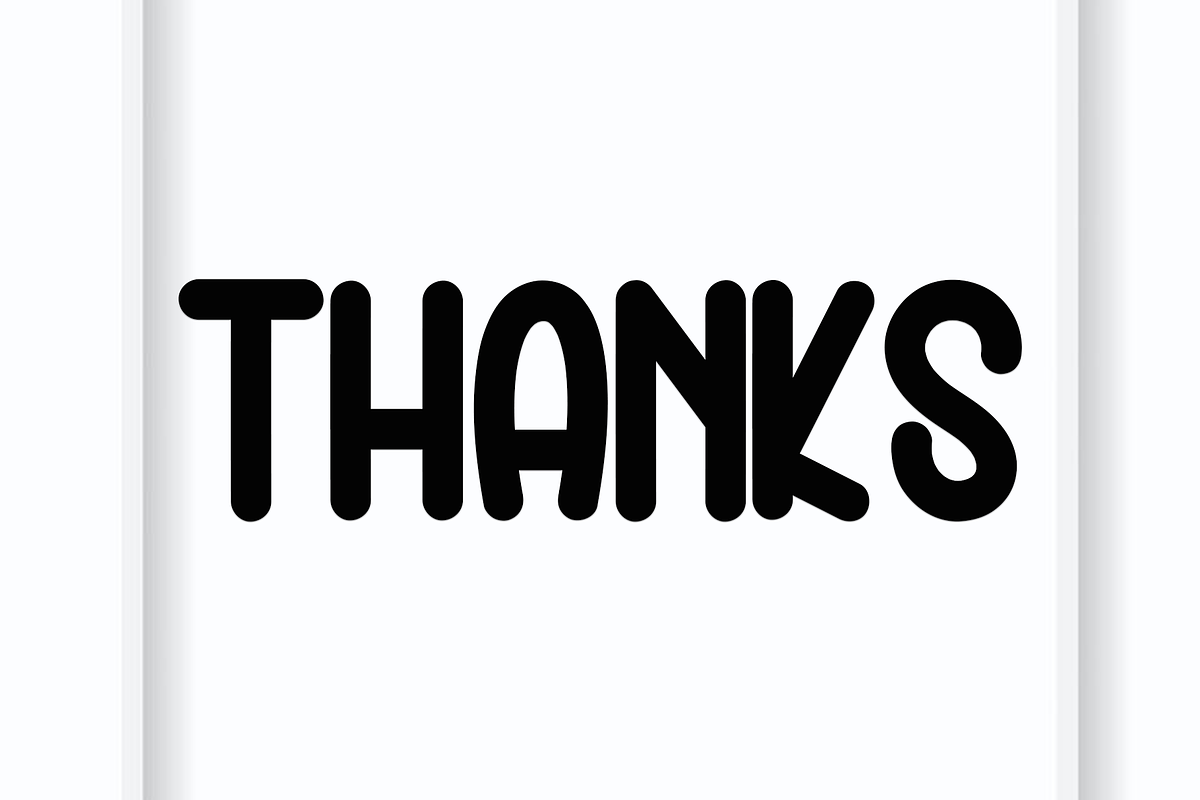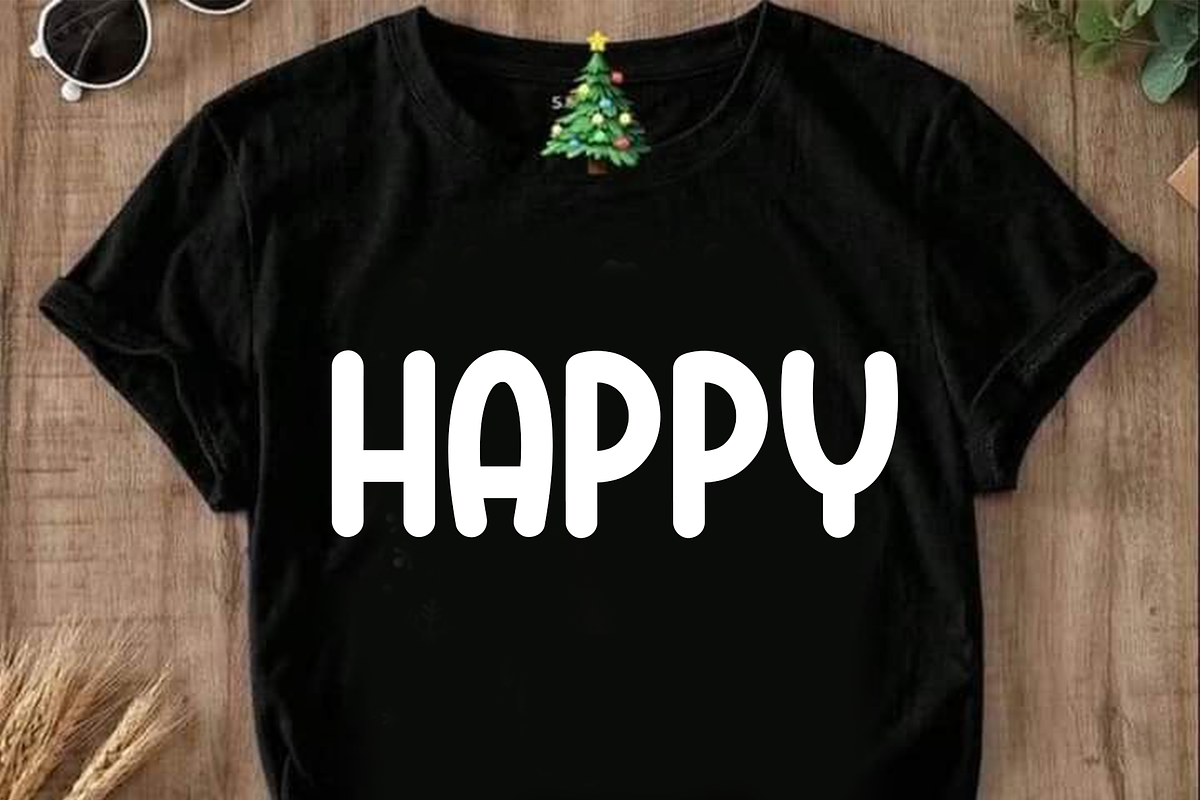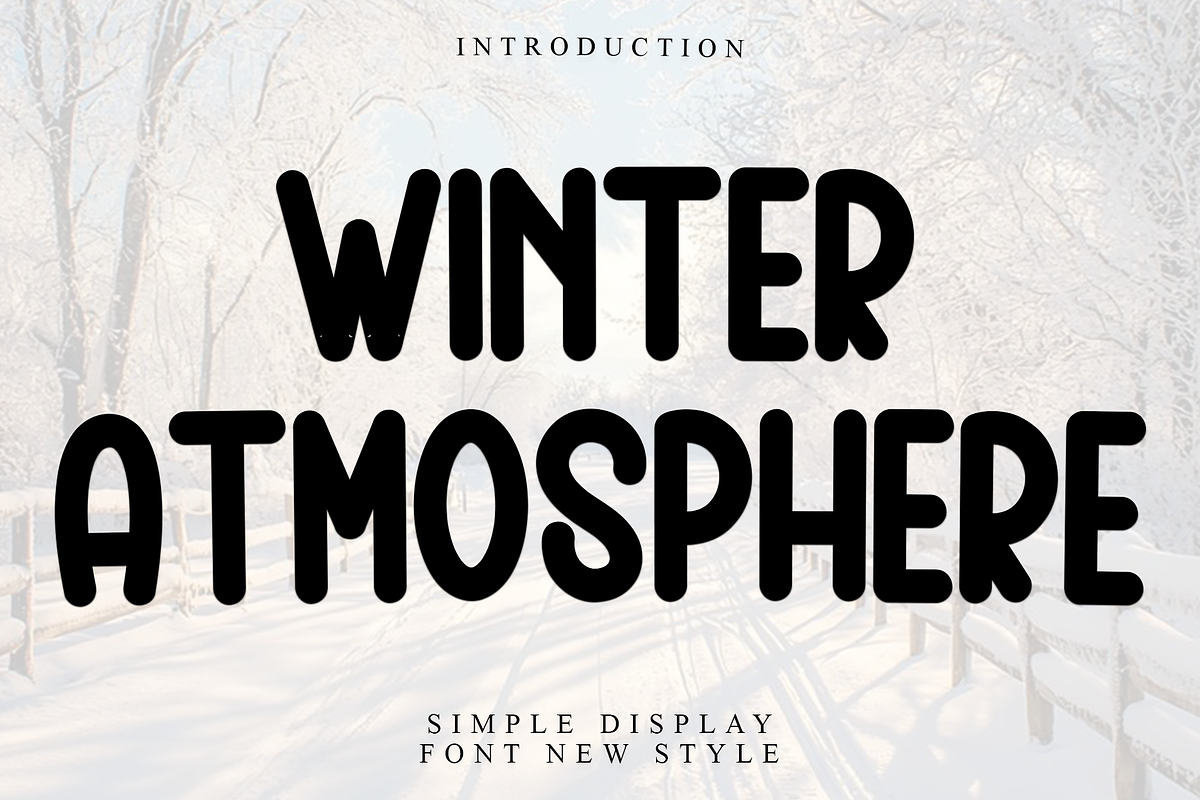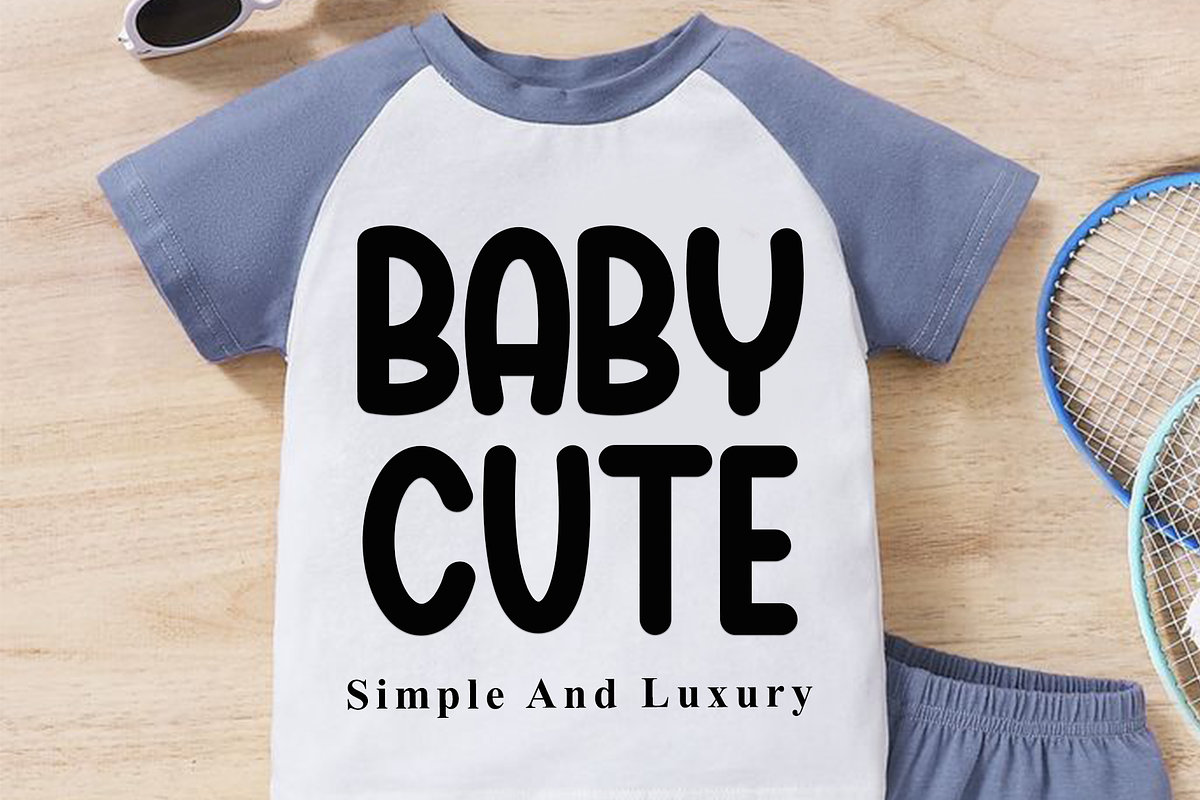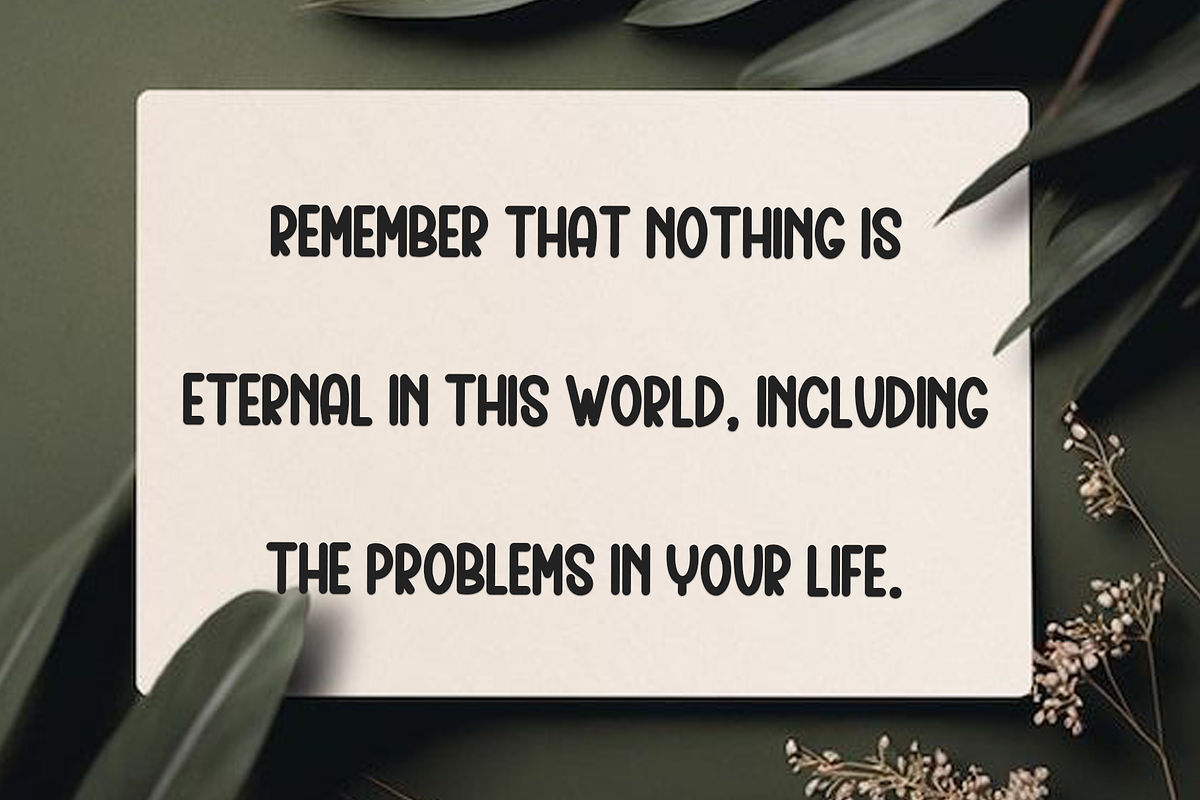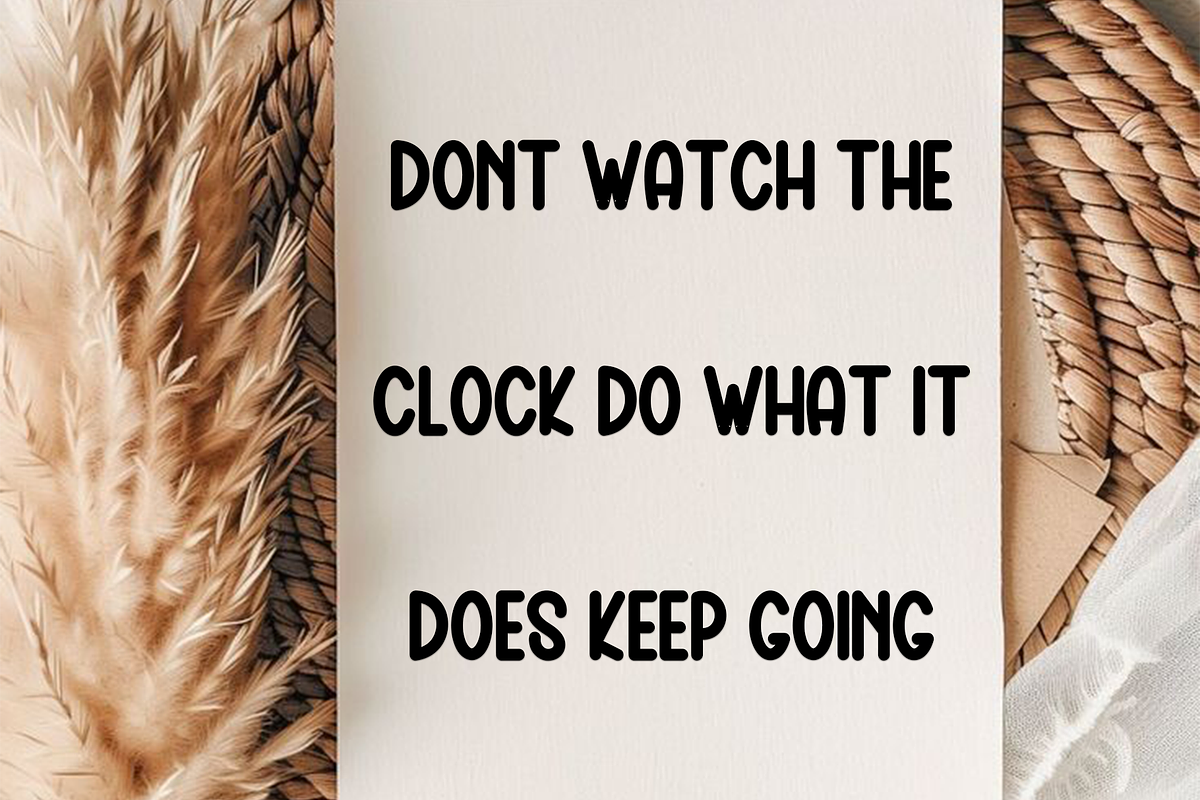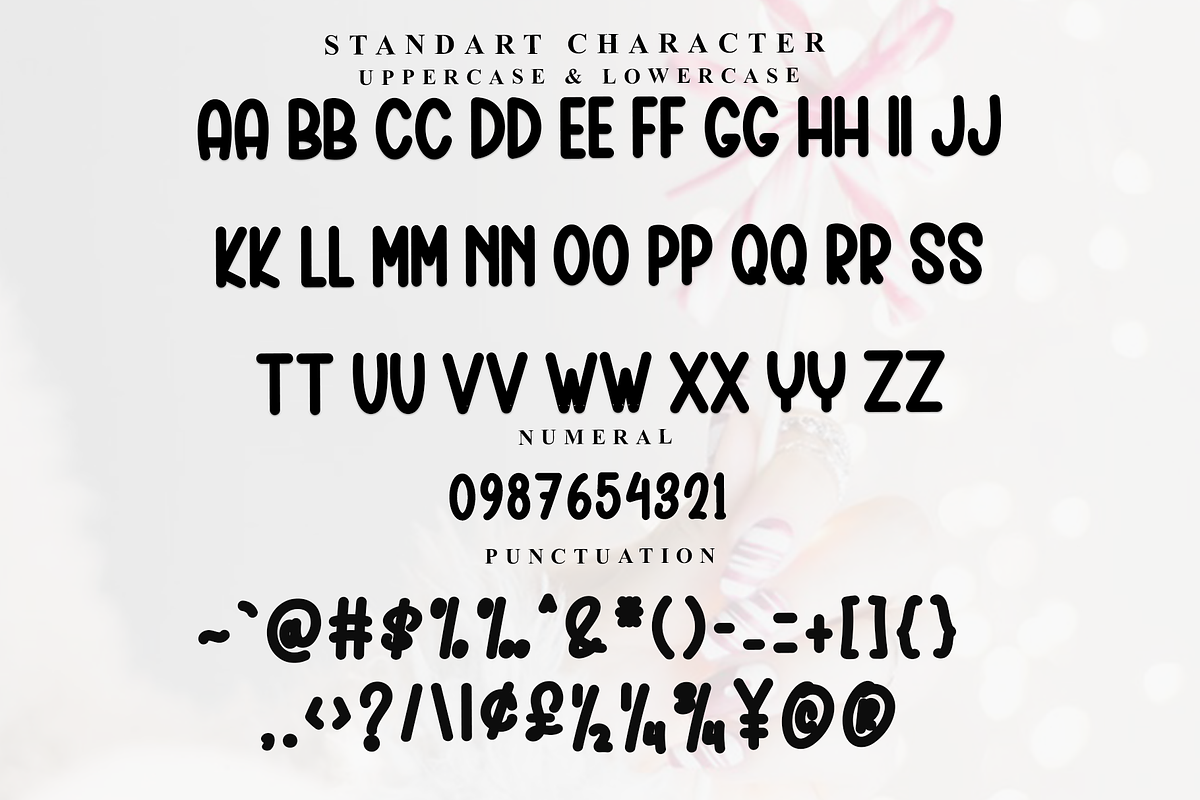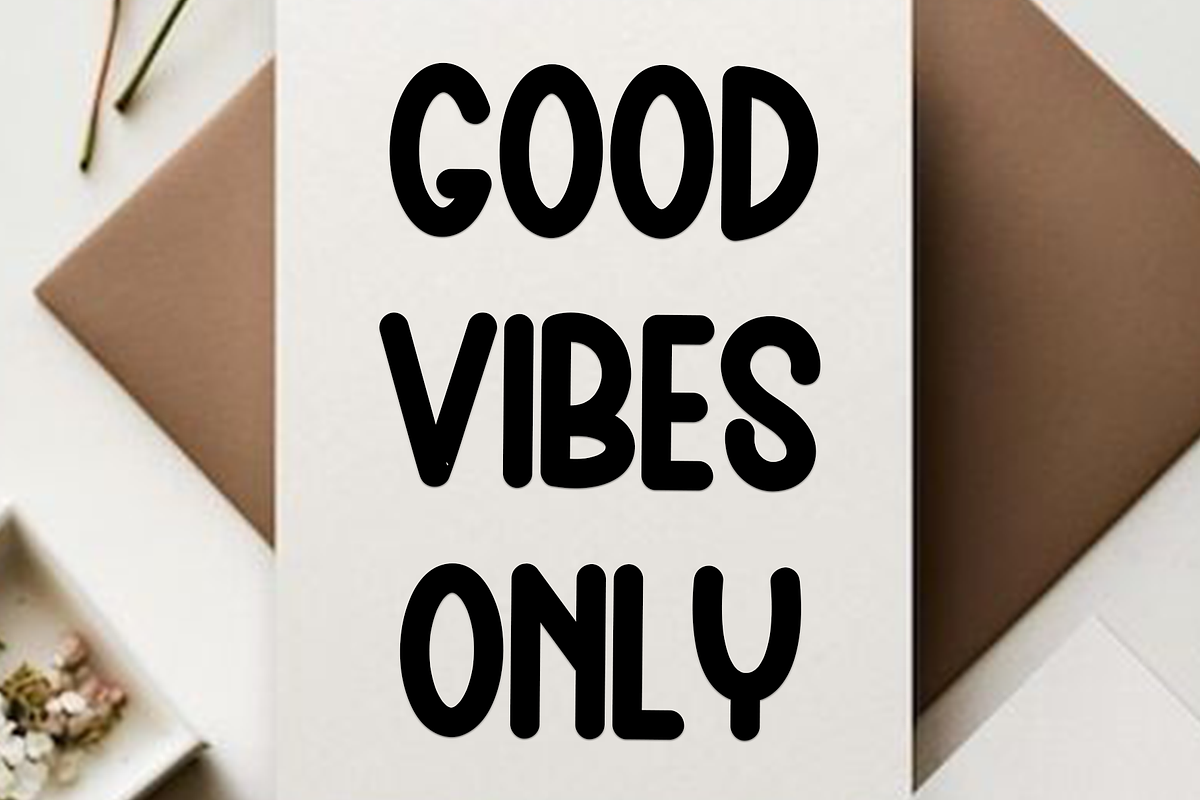
WInter Atmosphere
WInter Atmosphere is a beautiful and eye-catching font designed with a soft, unique touch. Its distinctive strokes give it a special character, making it meaningful and versatile for future use. With various characters, it’s perfect for design projects, crafts, and other creative works.